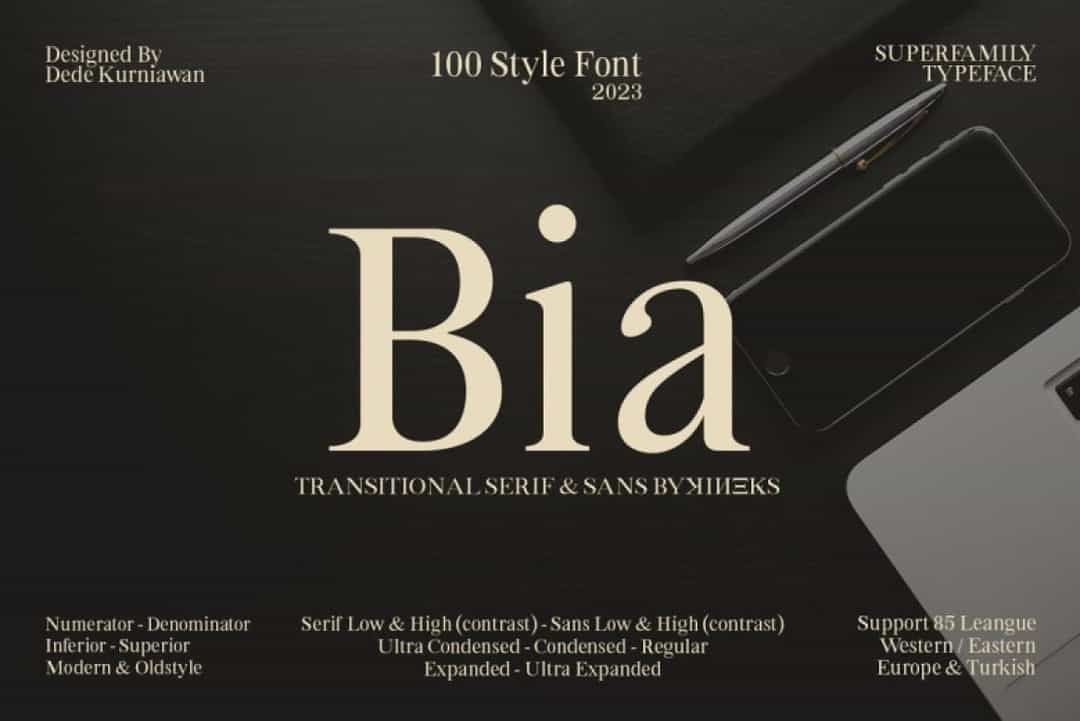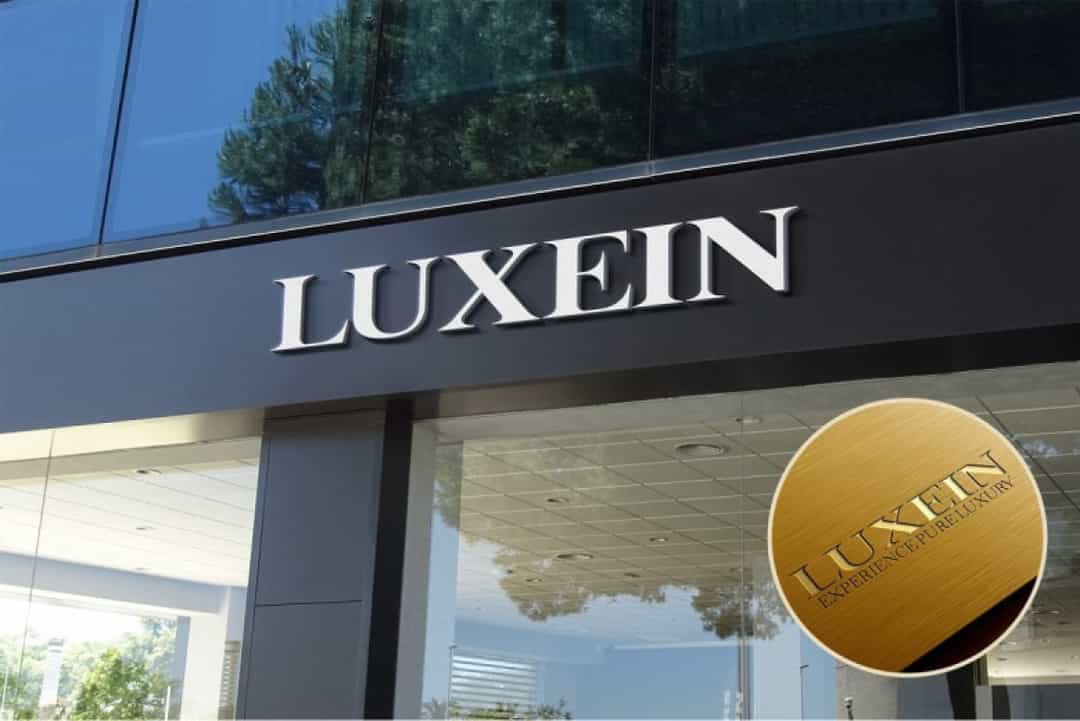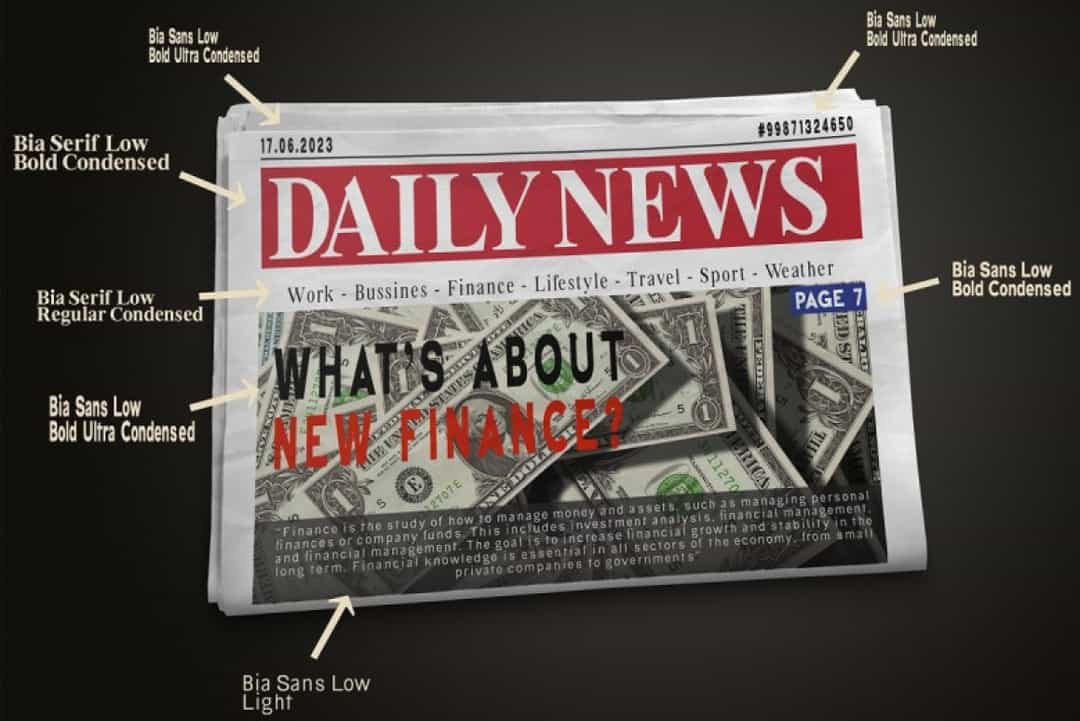
Bia Superfamily is the first font duo created with an alphabetic classification of transitional serif fonts consisting of 100 styles. Compatible with 85 languages from Western/Eastern Europe as well as Turkish regions, it provides global accessibility. Furthermore, this font family offers features like numerator modernisation denominator modernisation oldstyle figures etc.